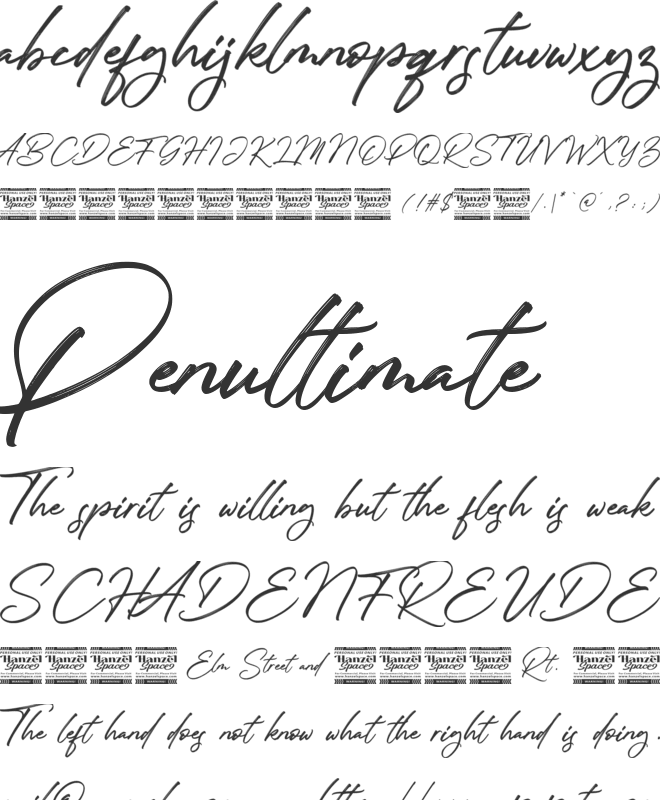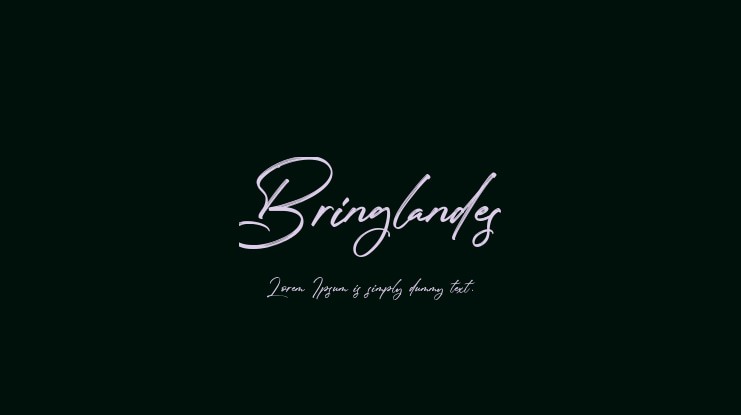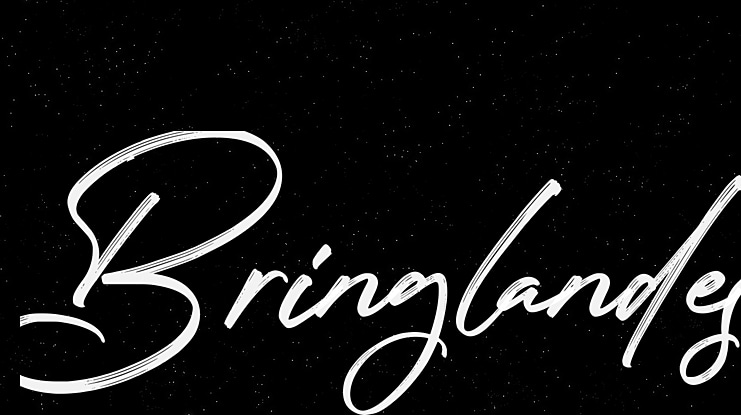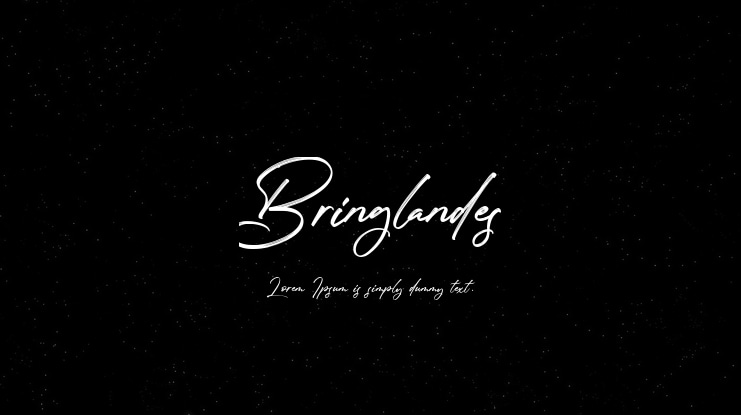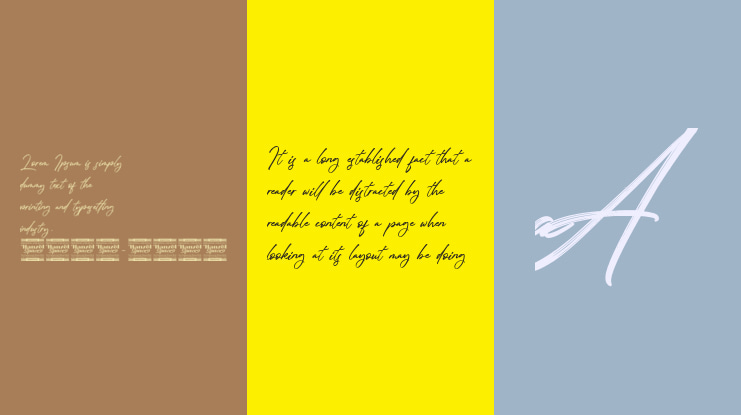
Introducing Bringlandes Handwritten Font
A modern and stylish handcrafted signature font that’ll make your audience swoon and enhance your projects. Every stroke and curve was created to capture the essence of modernity and style. This gorgeous and stylish font can be used for a host of different content needs and projects. Ideal for social media posts and ads, printed quotes, t-shirt designs, packaging, or even as a modern text overlay to any background image. Bringlandes Handwritten Font includes Multilingual Options to make your branding globally acceptable.
Features:
• Standard Ligatures
• Stylistic Sets
• Numerals and Punctuation